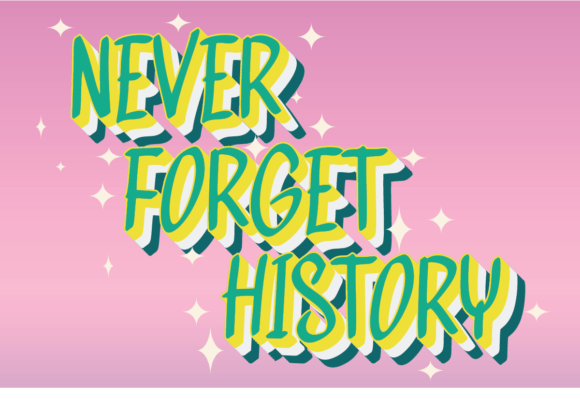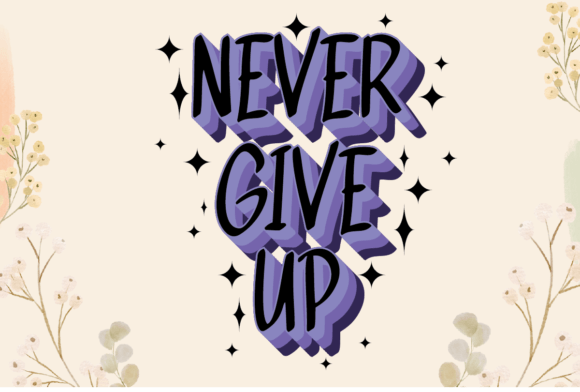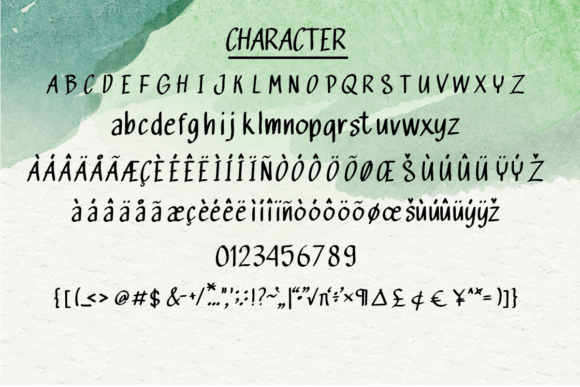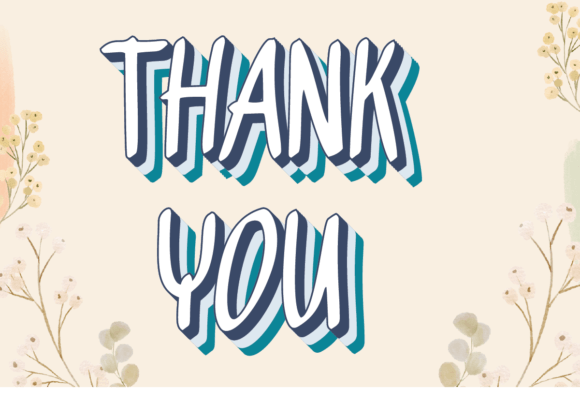
Introduction to Nightburn Font
As you sit in front of your computer screen, staring blankly at the endless possibilities of your creative project, you start to feel a spark of inspiration. The words begin to flow, and your imagination runs wild. But, there’s one crucial element missing – the perfect font. It’s in these moments that you realize the importance of having a reliable design resource that can elevate your work to new heights. This is where the Nightburn Font comes in – a game-changing addition to any creative arsenal.
Masterfully designed to capture the essence of handwritten elegance, the Nightburn Font is a true masterpiece. Its unique blend of classy calligraphic influences and contemporary freshness makes it a standout in the world of design. Whether you’re working on a high-quality brochure, a creative project, or simply want to add a touch of personality to your social media posts, this font is sure to impress.
Key Features of Nightburn Font
- Unique, modern font style with a transparent background, ideal for graphic designers and artists.
- Can be used for various design applications, including logos, typography, and digital art.
- Perfect for designers looking for a high-quality, creative font to elevate their design projects.
Honest Review: Nightburn Font
I recently stumbled upon the Nightburn Font and was excited to give it a try in my next design project. As a designer, I’m always on the lookout for high-quality fonts that can elevate my work and bring a unique touch to my creative projects. The Nightburn Font did not disappoint!
Here are some of the things that work well with the Nightburn Font: ✨
- Its modern and edgy aesthetic makes it perfect for futuristic and sci-fi themed projects.
- The font is highly customizable, allowing for a range of color and style options.
However, there are some limitations to keep in mind: ⚠️
- The font may not be suitable for projects that require a lot of text, as it can be quite busy and overwhelming.
- The transparent background option can be tricky to work with, especially if you’re not familiar with design software.
Overall, I was impressed with the Nightburn Font and would definitely consider using it again in my future design projects. Its unique style and high-quality design make it a valuable resource for designers looking to add a touch of sophistication to their work.
Tips for Getting the Most Out of Nightburn Font
Use the Nightburn Font in combination with other design elements to create a visually appealing and cohesive look. Experiment with different font sizes, colors, and styles to achieve the desired effect.
The Nightburn Font is ideal for use in creative projects such as logo designs, social media graphics, and marketing materials. Its high-quality design and transparent background make it a versatile resource for designers and non-designers alike.